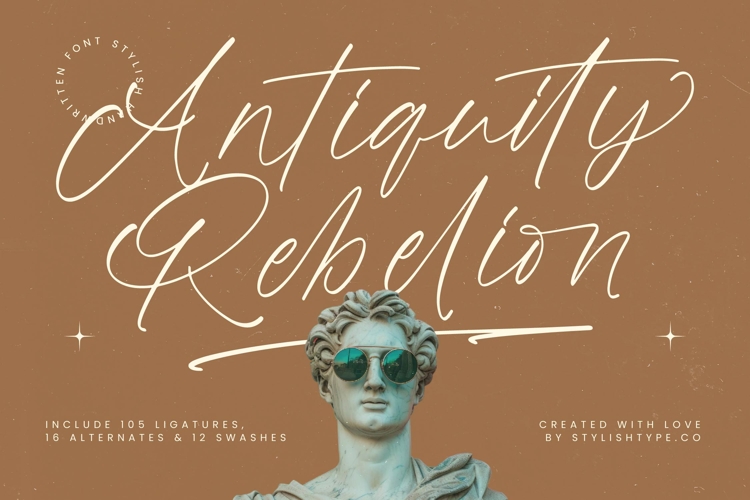
Antiquity Rebelion - Stylish Handwritten Font
Antiquity Rebellion is an expressive handwritten script that blends classical elegance with bold modern attitude, creating a striking contrast perfect for editorial branding, luxury packaging, fashion campaigns, and artistic visual identities. Designed with 105 ligatures, 16 alternates, and 12 dynamic swashes, this typeface delivers organic flow, high–impact character, and a refined handwritten rhythm that elevates logos, posters, album covers, and social media graphics with a distinctive rebellious charm.